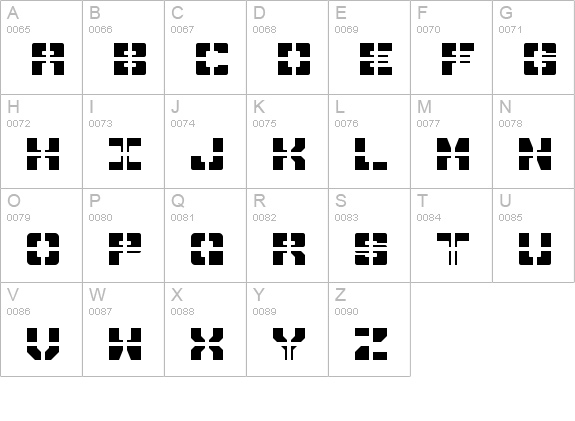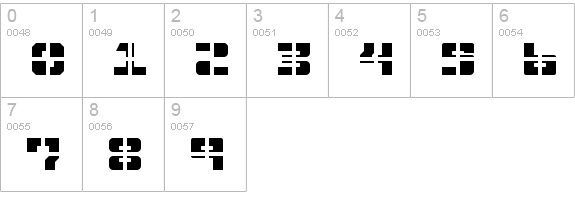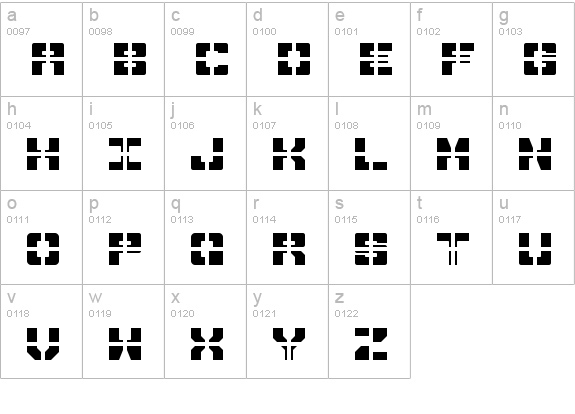
Drawn and Quartered Font Details
The Drawn and Quartered font is a captivating and unique typeface that exudes a perfect balance of elegance and edginess. Its intricate design features a striking combination of sharp angles and flowing curves, making it a versatile choice for a wide range of design projects. The font's distinctive style is sure to make a bold statement and leave a lasting impression. What sets Drawn and Quartered font apart is not just its visually stunning appearance, but also the fact that it is available for free download at FontsMarket.com. This means that you can easily access this exceptional font without any cost, allowing you to elevate your designs without breaking the bank. Whether you're looking to add a touch of sophistication to your branding, create eye-catching headlines, or enhance your social media graphics, Drawn and Quartered font is the perfect choice. Download this exceptional font today and unleash your creativity with its unique and captivating style.